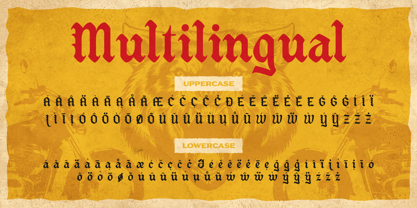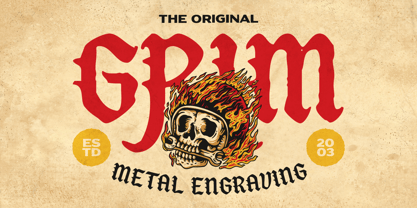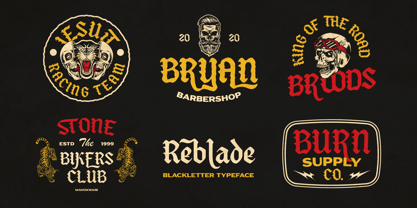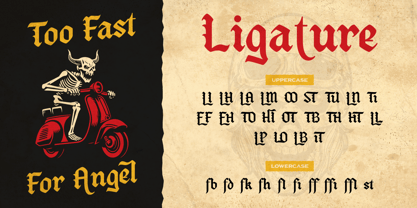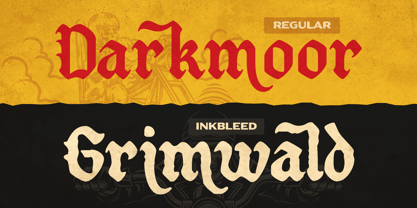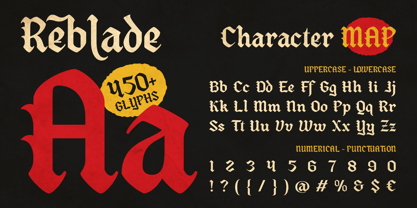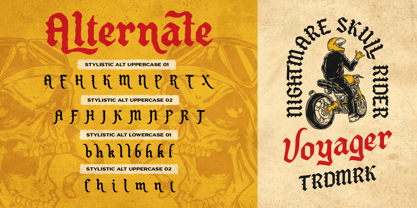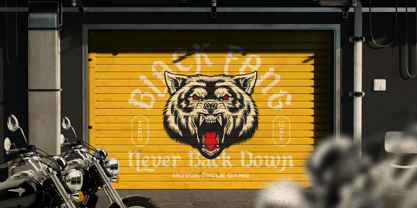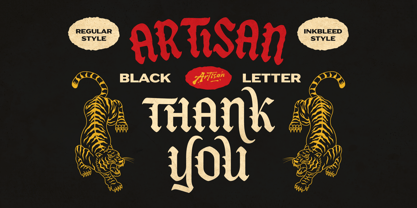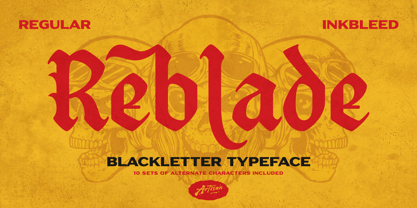
Reblade
The Reblade Font Family was designed by Meidy Meichico and published by Artisan Themes. Reblade contains 2 styles and family package options. More about this family
Reblade is a modern blackletter font designed to give your projects a strong, edgy, and vintage look. Inspired by classic gothic calligraphy and custom tattoo art, this font is perfect for creators who want to make a bold statement.
Whether you are working on a metal band logo, a biker clothing line, vintage packaging, or a cool poster, Reblade adds instant character and attitude to your designs.
Perfect for: Logo Design & Branding, Apparel & T-Shirt Design (Motorcycle clubs, streetwear, metal bands), Tattoo Art & Studio Branding, Product Packaging & Labels, Poster, Flyers, and Album Covers, Edgy Social Media Graphics
Features: A - Z set (Uppercase & Lowercase), Number, Punctuation , Alternate, Ligature, Multilingual